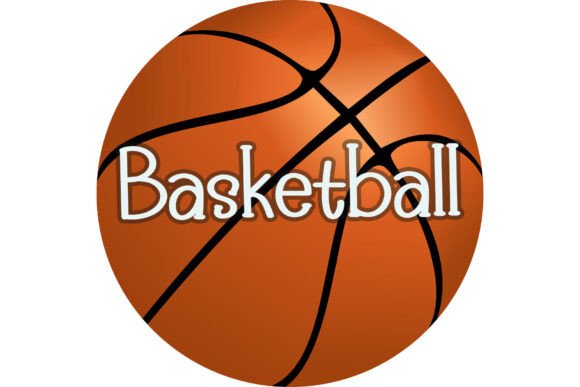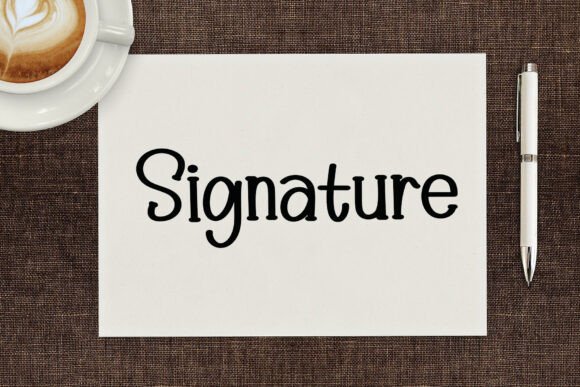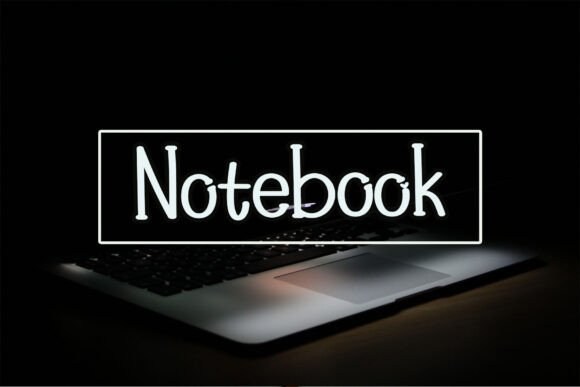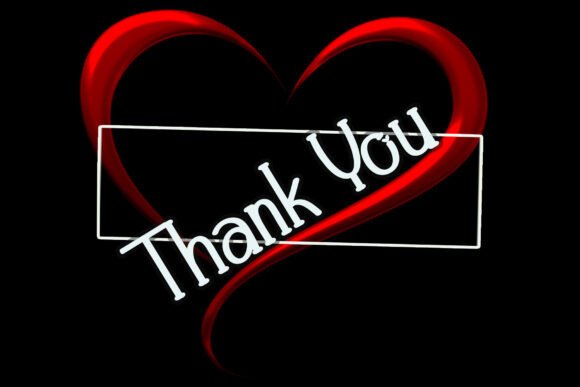
Hello Chubby Font: Elevate Your Designs with Elegance and Flair
In the world of typography, fonts play a pivotal role in bringing designs to life. Among the myriad of fonts available, Hello Chubby stands out as a delicate, elegant, and flowing handwritten font that has captured the hearts of designers and crafters alike. With its beautiful and well-balanced characters, Hello Chubby seamlessly matches a wide pool of designs, making it an ideal choice for those looking to add a touch of sophistication and charm to their creative projects.
The Charm of Hello Chubby
Hello Chubby is more than just a font; it’s an artistic expression that can elevate your designs from ordinary to extraordinary. Its delicate and elegant strokes exude a sense of refinement and luxury, perfect for projects that demand a high level of sophistication. Whether you’re working on a branding project, a wedding invitation, or a packaging design, Hello Chubby’s flowing handwritten style adds a personal touch that resonates with audiences.
Key Features of Hello Chubby
- Delicate and Elegant Strokes: Hello Chubby’s strokes are meticulously crafted to provide a smooth and luxurious feel to your designs.
- Well-Balanced Characters: Each character in the Hello Chubby font is carefully designed to ensure perfect balance and harmony, making it easy to read and visually appealing.
- Versatility: Hello Chubby’s versatile nature allows it to complement a wide range of designs, from feminine and whimsical to elegant and sophisticated.
- Handwritten Style: The font’s handwritten style adds a personal and unique touch to your designs, setting them apart from the rest.
Applications of Hello Chubby
Hello Chubby’s versatility makes it suitable for a variety of applications, including:
- Branding and Logos: Use Hello Chubby to create a memorable and elegant brand identity that leaves a lasting impression on your customers.
- Wedding and Event Invitations: Add a touch of romance and sophistication to your wedding or event invitations with Hello Chubby’s beautiful handwritten style.
- Packaging Design: Elevate your product packaging with Hello Chubby’s elegant and refined strokes, making your product stand out on store shelves.
- Stationery and Greeting Cards: Bring a personal touch to your stationery and greeting cards with Hello Chubby’s unique and charming style.
Tips for Using Hello Chubby Effectively
To make the most of Hello Chubby, consider the following tips:
- Pair with Contrasting Fonts: Combine Hello Chubby with a contrasting font to create visual interest and hierarchy in your design.
- Experiment with Colors: Play with different colors to find the perfect match for your design and enhance the overall aesthetic.
- Use for Headings and Titles: Hello Chubby is perfect for headings and titles, adding a touch of elegance and sophistication to your design.
| Font Name | Hello Chubby Font |
| Author | asmunin78 |
Hello Chubby is a beautiful and elegant handwritten font that can elevate your designs to new heights. With its delicate strokes, well-balanced characters, and versatile nature, it’s an ideal choice for designers and crafters looking to add a touch of sophistication and charm to their creative projects. Whether you’re working on a branding project, a wedding invitation, or a packaging design, Hello Chubby is sure to make your designs come alive!